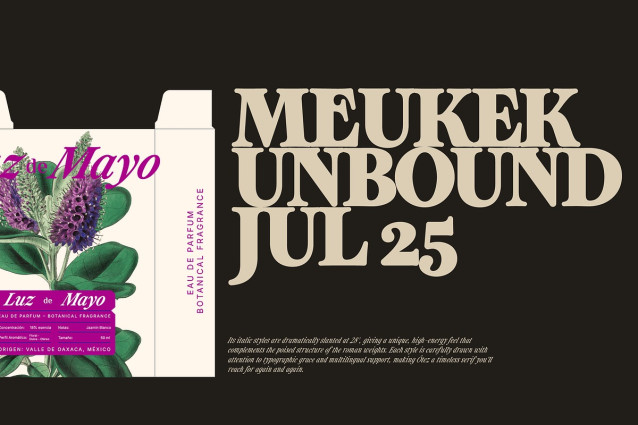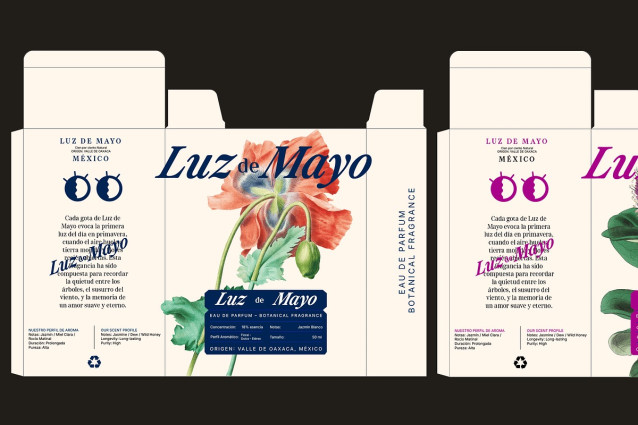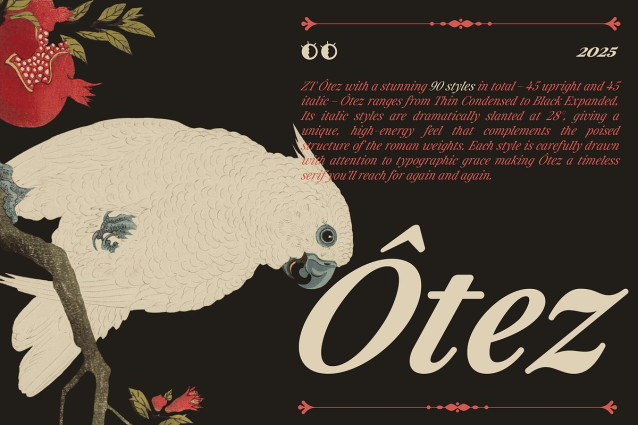
ZT Otez Font
ZT Otez Font is a refined serif typeface crafted with elegance, precision, and timeless character. Inspired by classic editorial lettering and 20th-century French book typography, ZTOtez is designed for those who seek both beauty and performance in every letter.
With a stunning 90 styles in total — 45 upright and 45 italic — ZT Otez ranges from Thin Condensed to Black Expanded, making it exceptionally flexible for everything from luxury branding and magazine layouts to packaging and poster design.